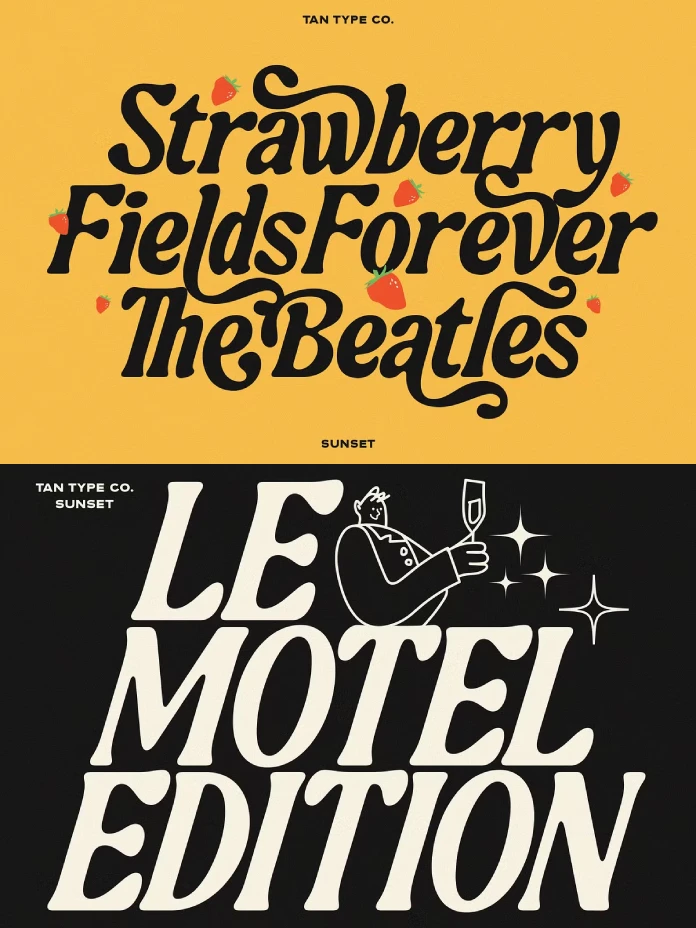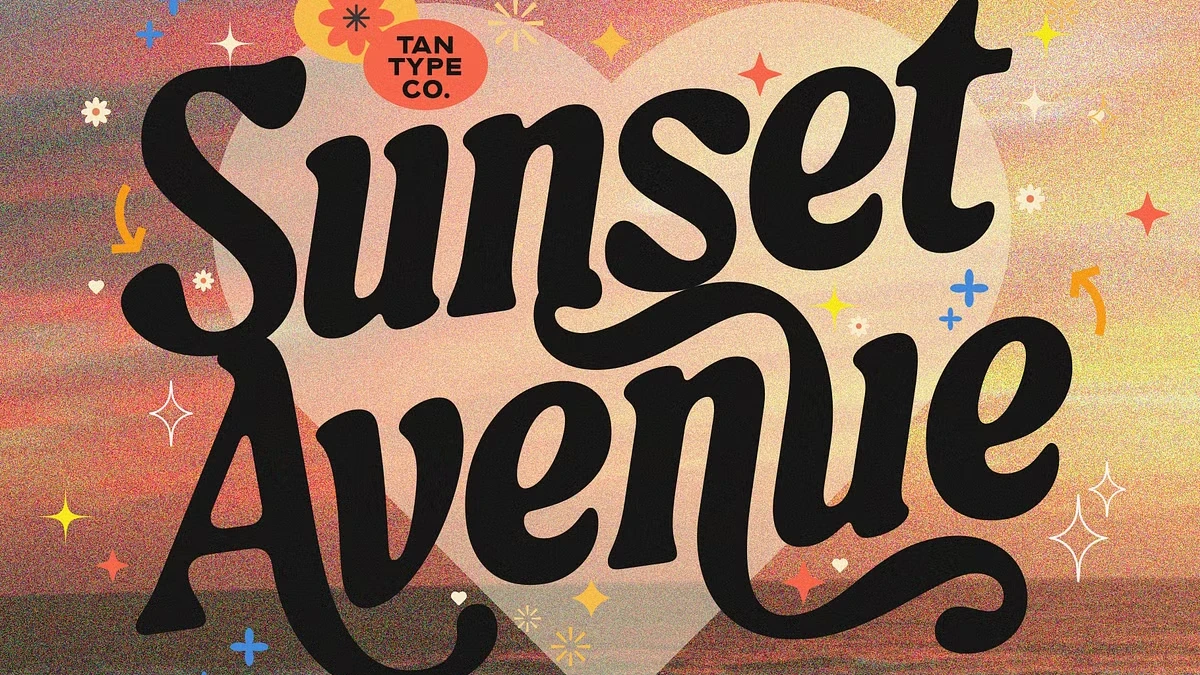
TanType’s Sunset Font Provides the Ultimate Vibe for Nostalgic, Sun-Kissed Design
Typography is experiencing a soulful revival. Designers are moving past the era of cold, impersonal fonts. Instead, they now seek typefaces with genuine character. The TAN Sunset font by TanType perfectly captures this shift. It offers a warm, inviting alternative that feels both nostalgic and incredibly current. This playful summer script embodies the carefree spirit of a perfect summer evening. Consequently, it provides a powerful tool for creating brands and designs that connect on a human level. The Sunset typeface is not just about readability; it is about feeling.
The TAN Sunset font is a beautiful paradox. It is both simple and stylish. It feels whimsical yet remains strong and confident. This font finds its inspiration in the lingering sweetness of summer days. Imagine the last golden hours at the beach. That feeling of warm, effortless fun is baked into every curve and stroke of this typeface. It was designed to evoke a smile, to tap into a shared memory of sun-drenched nostalgia. This font invites you to create designs that are not just seen, but also felt.
What Makes the TAN Sunset Font So Captivating?
At first glance, the TAN Sunset font appears to be a casual script. However, a closer look reveals a sophisticated design at work. Its charm lies in a masterful balance of features that make it both unique and highly usable.
The structure of the Sunset typeface is built on confident, bold strokes. This gives it a strong presence that stands out in any design. Yet, these bold lines are softened by “flirty,” flowing curves. This creates a dynamic interplay between strength and playfulness. The letters connect with a breezy, natural flow, mimicking the rhythm of casual handwriting. This quality makes the font feel personal and approachable. It sheds the rigidity of more formal scripts.
This font has a distinct retro flavor. Its letterforms subtly echo the free-spirited typography of the 1970s. However, it cleverly avoids feeling dated. Instead, the TAN Sunset font translates that vintage aesthetic for a modern audience. Why does this resonate so strongly today? That nostalgic element taps into a collective desire for authenticity and simpler times. It evokes feelings of warmth, freedom, and happiness. This makes it a powerful asset for any project aiming to create a positive emotional impact.
The Strategic Advantage of the Sunset Typeface in Design
The true power of the TAN Sunset font lies in its versatility. While it has a distinct personality, it adapts beautifully to a wide range of applications. Designers are choosing it for its ability to instantly inject warmth and character into a project.
For branding, the TAN Sunset typeface is a game-changer. It is perfect for logos, taglines, and marketing materials for lifestyle brands, cafes, boutiques, and creative businesses. Imagine it as the logo for a beachfront coffee shop or a sustainable fashion label. It immediately communicates a friendly, laid-back, and authentic brand ethos. This font helps businesses move beyond a corporate feel and build a brand that feels like a friend.
The utility of the TAN Sunset font extends far beyond branding. Its playful elegance makes it an excellent choice for wedding invitations and event posters. On social media, its eye-catching style ensures that graphics stand out in a crowded feed. Furthermore, it works beautifully for packaging design, adding a handcrafted touch that can make a product feel more special and artisanal. It adds a touch of seaside charm to any project it graces.
How to Use the TAN Sunset Font Like a Pro
To maximize the impact of this beautiful script, a thoughtful design approach is key. Its expressive nature requires careful consideration of its context and companions. How can you ensure it shines in your next design?
The TAN Sunset font is the star of the show. Therefore, it needs a strong supporting cast. Pairing it with a clean, understated sans-serif font for body text is an excellent strategy. This creates a clear visual hierarchy and ensures readability. A font like Poppins or Montserrat provides a neutral, modern backdrop that allows the personality of the Sunset typeface to take center stage in headlines. This contrast creates a design that is both visually interesting and easy to navigate.
A font this evocative should not exist in a vacuum. To enhance its nostalgic, summery vibe, build a complete visual world around it. Pair the TAN Sunset font with a warm, sun-kissed color palette. Think terracotta oranges, dusty pinks, and creamy yellows. You can also complement it with grainy textures or vintage-filtered photography to amplify its retro appeal. By creating a cohesive mood board, you transform the font from a simple choice of letters into the cornerstone of a compelling and immersive design story.